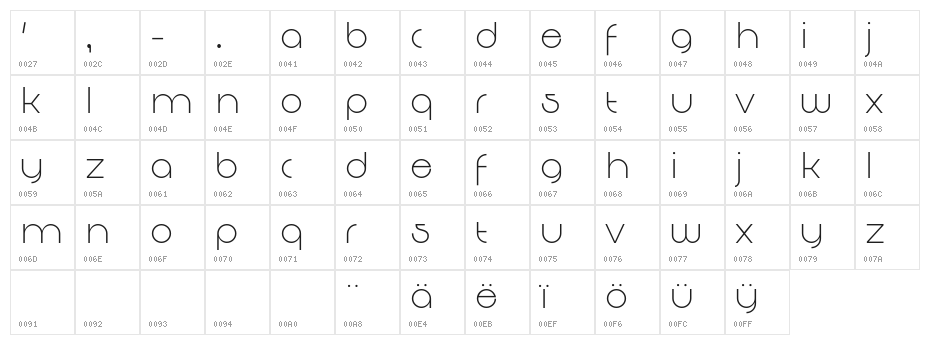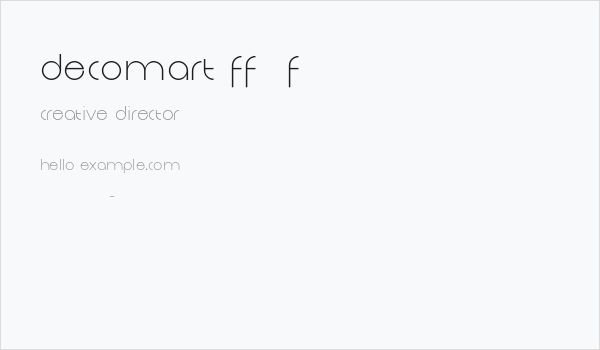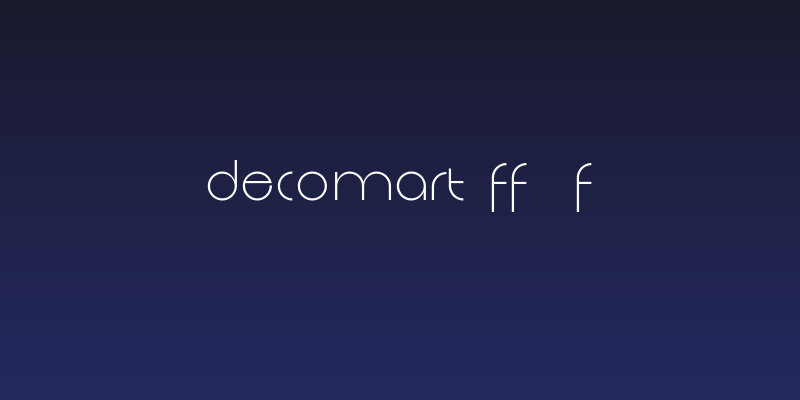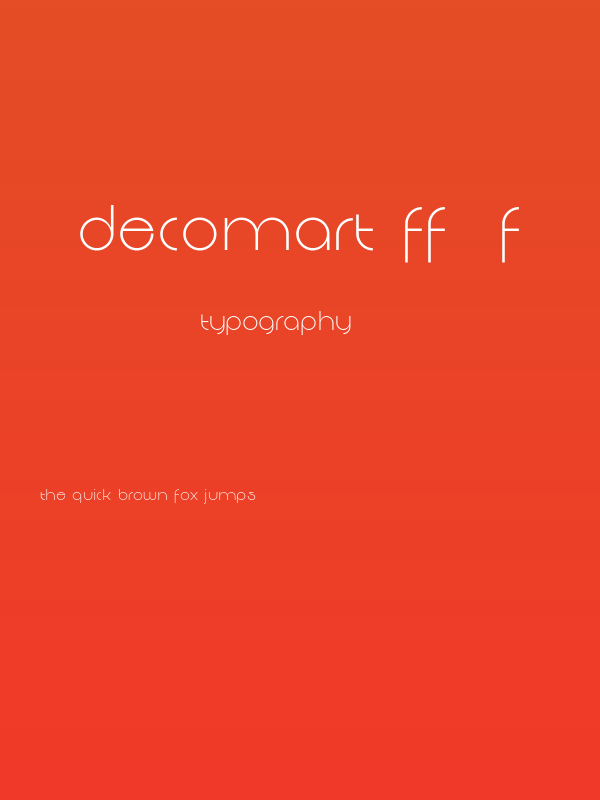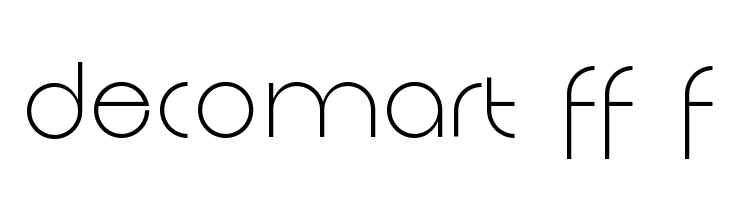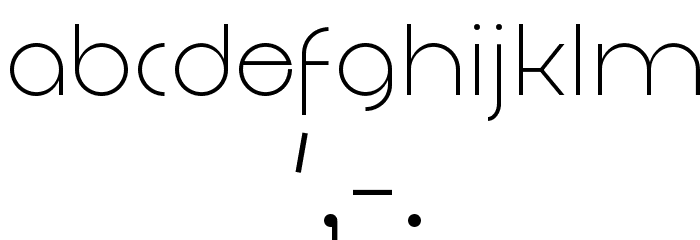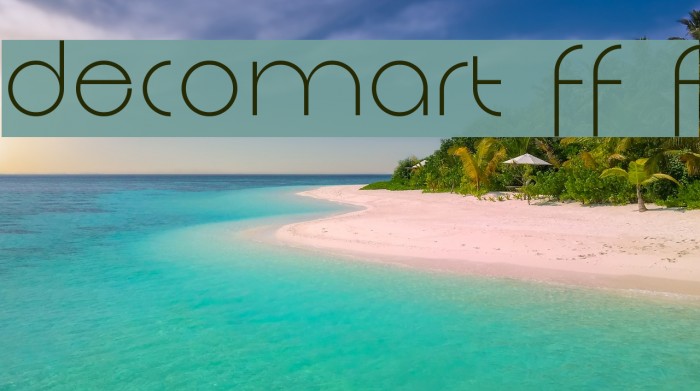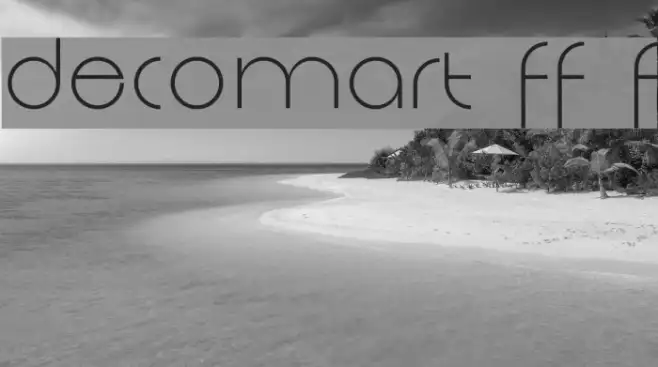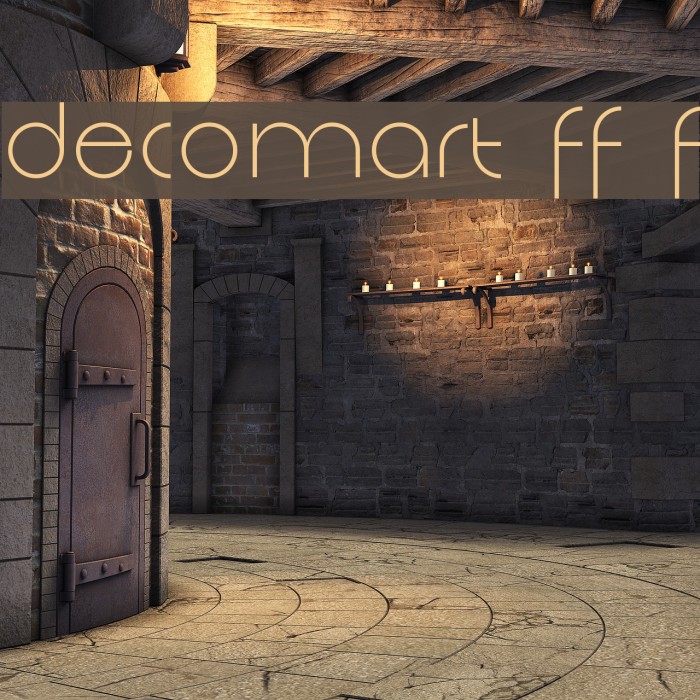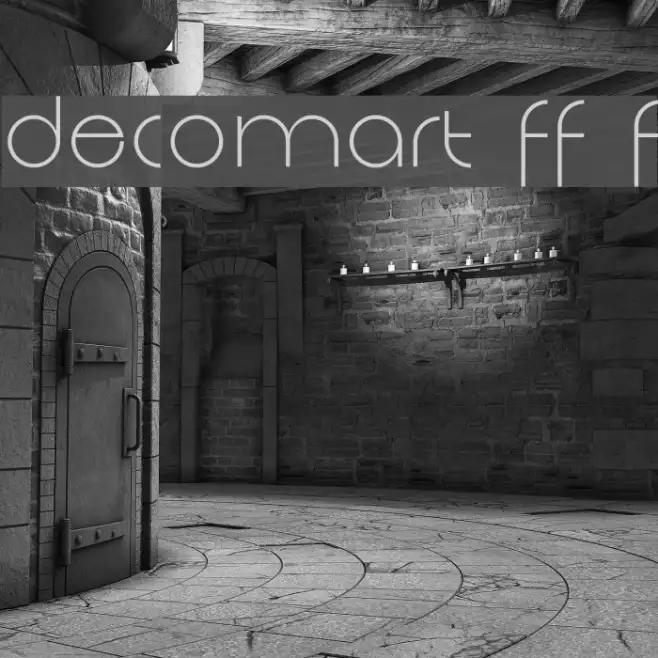
Decomart FF 4F Font
Decomart FF 4F Description
This font features a sleek and modern design with a minimalist aesthetic. The characters are crafted with a geometric precision, showcasing clean lines and smooth curves. The uniformity in stroke width gives it a contemporary feel, while the rounded edges add a touch of softness. The lowercase letters exhibit a unique style with some characters having distinctive, playful elements, such as the 'g' and 'y'. The overall appearance is both elegant and approachable, making it suitable for a variety of design applications.
| Use Case | Headlines, Logos, Digital interfaces |
| Proposed Projects | Ideal for branding, digital interfaces, modern advertising, and minimalist design projects. |